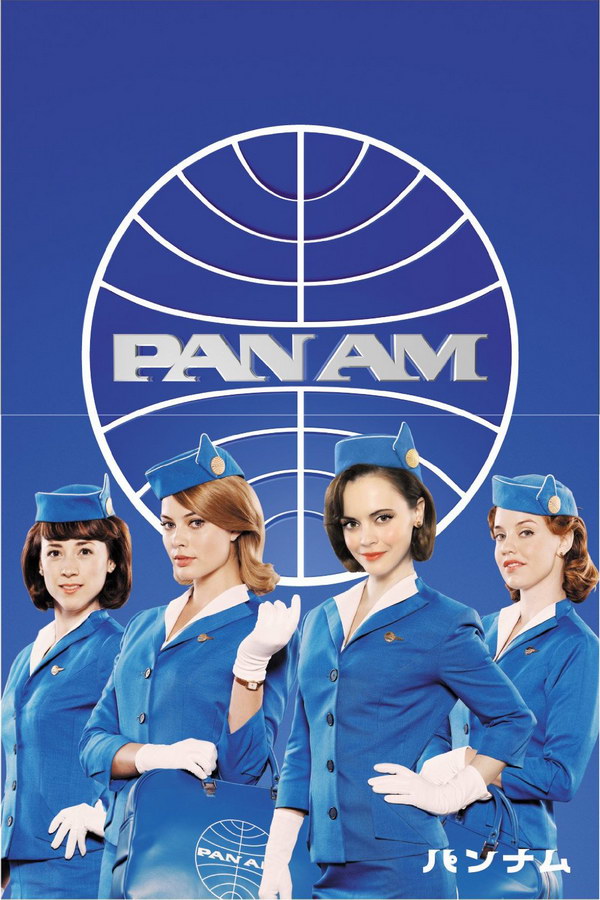
Pan Am Font
Fonts in UsePan Am is a television series that aired on ABC from 2011 to 2012, following the lives of flight attendants and pilots working for the iconic airline in the 1960s.
The TV series is named after the iconic Pan Am logo, which depicts a blue globe with curved parabolic lines overlaying it and the text "PAN AM" in the center. The font used for the lettering closely resembles the PanAm font family designed by GemFonts, which is available for free download in the Fonts Used Section.